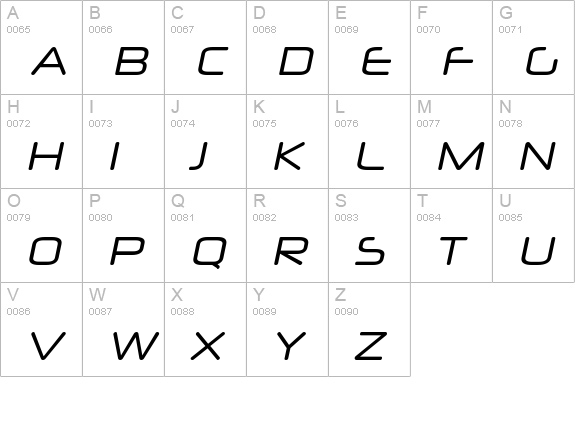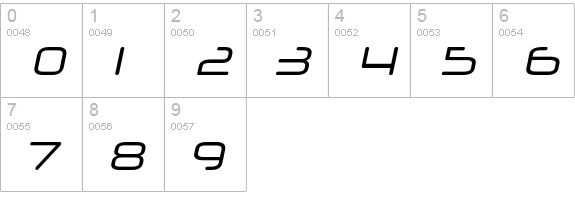
Neuropol X Italic Font Details
Neuropol X Italic is a distinctive, italic variant in the Neuropol typeface family \xE2\x80\x94 well suited to design and typography projects.
Neuropol X Italic is a sleek and modern typeface that exudes a sense of futuristic sophistication. With its unique italicized design, this font brings a dynamic and edgy look to any project or design. The sharp angles and clean lines of Neuropol X Italic make it perfect for conveying a sense of innovation and forward-thinking. Whether you're working on a tech-related project, a fashion editorial, or a branding campaign, this font will make a bold statement. And the best part? Neuropol X Italic is available for free download at FontsMarket.com. So, you can easily add this stylish and eye-catching font to your collection without breaking the bank. Don't miss out on the opportunity to enhance your designs with the distinctive flair of Neuropol X Italic. Download it today and take your projects to the next level!